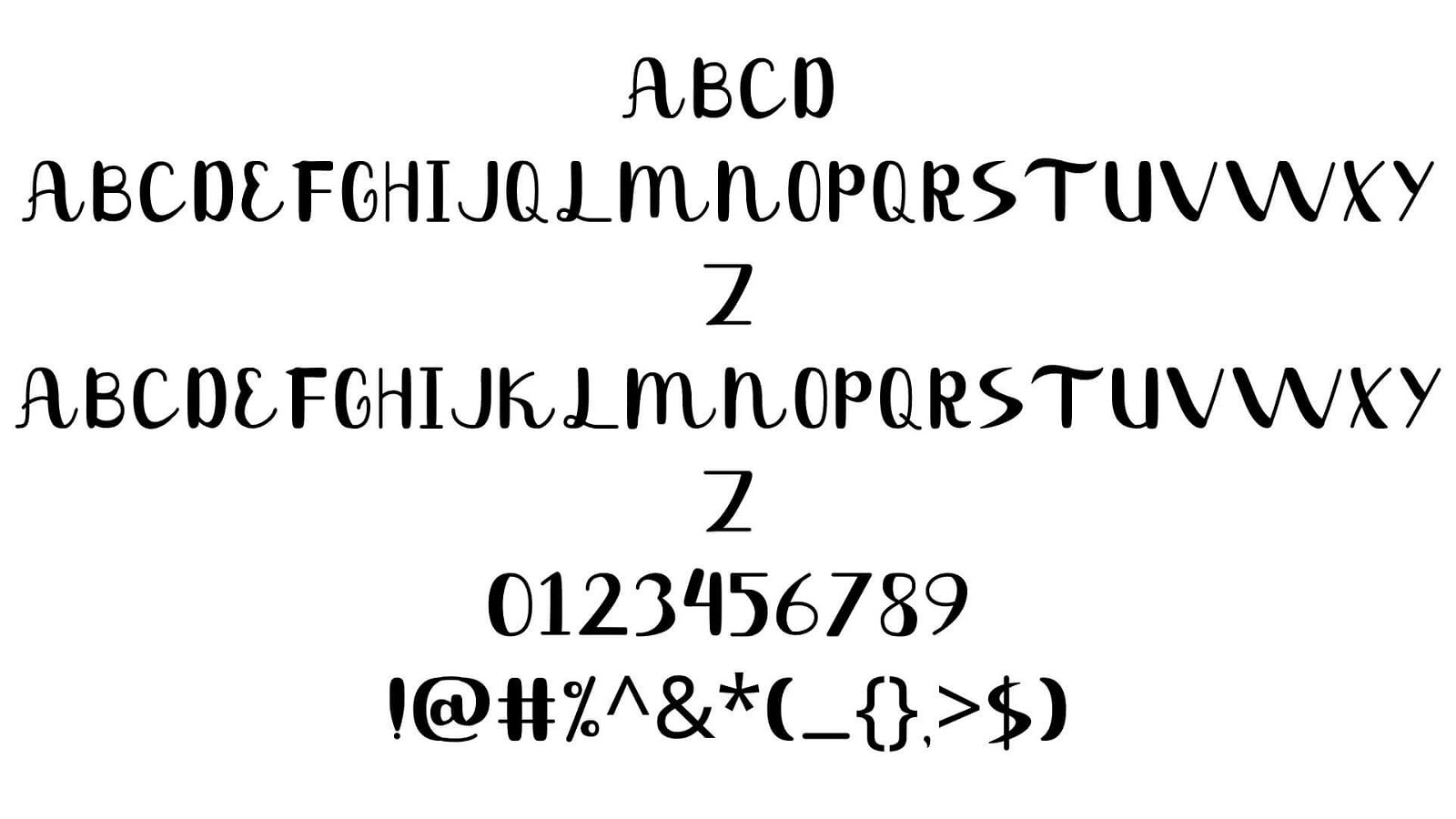
The tropical font is the brush script typeface and this font styling comes with the touch of calligraphic looks and this looks amazing on both the display and on-screen designs and this is listed inside google fonts.
This font comes with great hand-lettered typographic characters that provide great styling when paired with scriptina font and this will be useful for designing logos, visiting cards, and much more, and this is available in different formats.
This is the face brush typeface that will add the feminist calligraphy style to the design and content and there are different styles available in this font and all of them comes with a unique character set.
This is the amazing script typeface that is an amazing choice for printing purposes. This typeface got so much appreciated because of its clean and clear screen appearance.
To get the best result from this font styling use this font with a pair of amarillo font and you will achieve amazing shapes for website headers and footers, designing Titles and so much more.
This font is considered to have one of the best script typefaces that provide great results in all types of desings.
The designing and styling of this typeface have been done by Dirtyline Studio.
Yes, it is a great typeface that is an amazing choice for different projects because of its readability and legibility.
the usage of this typeface is really wide this can be paired with bembo font and this combo can be used for Titles, different types of documentation, website headers and footers, and many more.